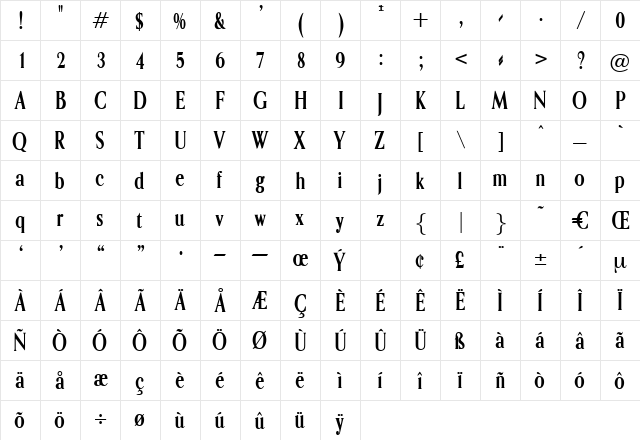
Tedeus Regular Font Preview
Tedeus Regular
Tedeus Regular Font Details
Design Context for Tedeus Typeface
Tedeus offers clean, dependable letterforms without strong stylistic allegiance, making it a practical choice for designers who need flexibility.